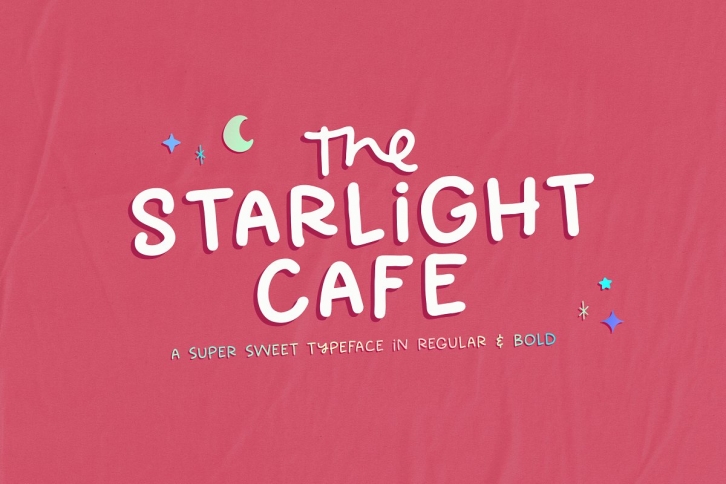
Introducing The Starlight Cafe, a sweet, legible typeface for quotes, apparel, merch & logos.
- The Starlight Cafe Dingbats (OTF) - a cute set of hand drawn dingbats. (The same 26 dings are in both the uppercase and lowercase slots for ease of use. Other dings are in slots 0-9.
- English Only Glyphs with select catchwords.